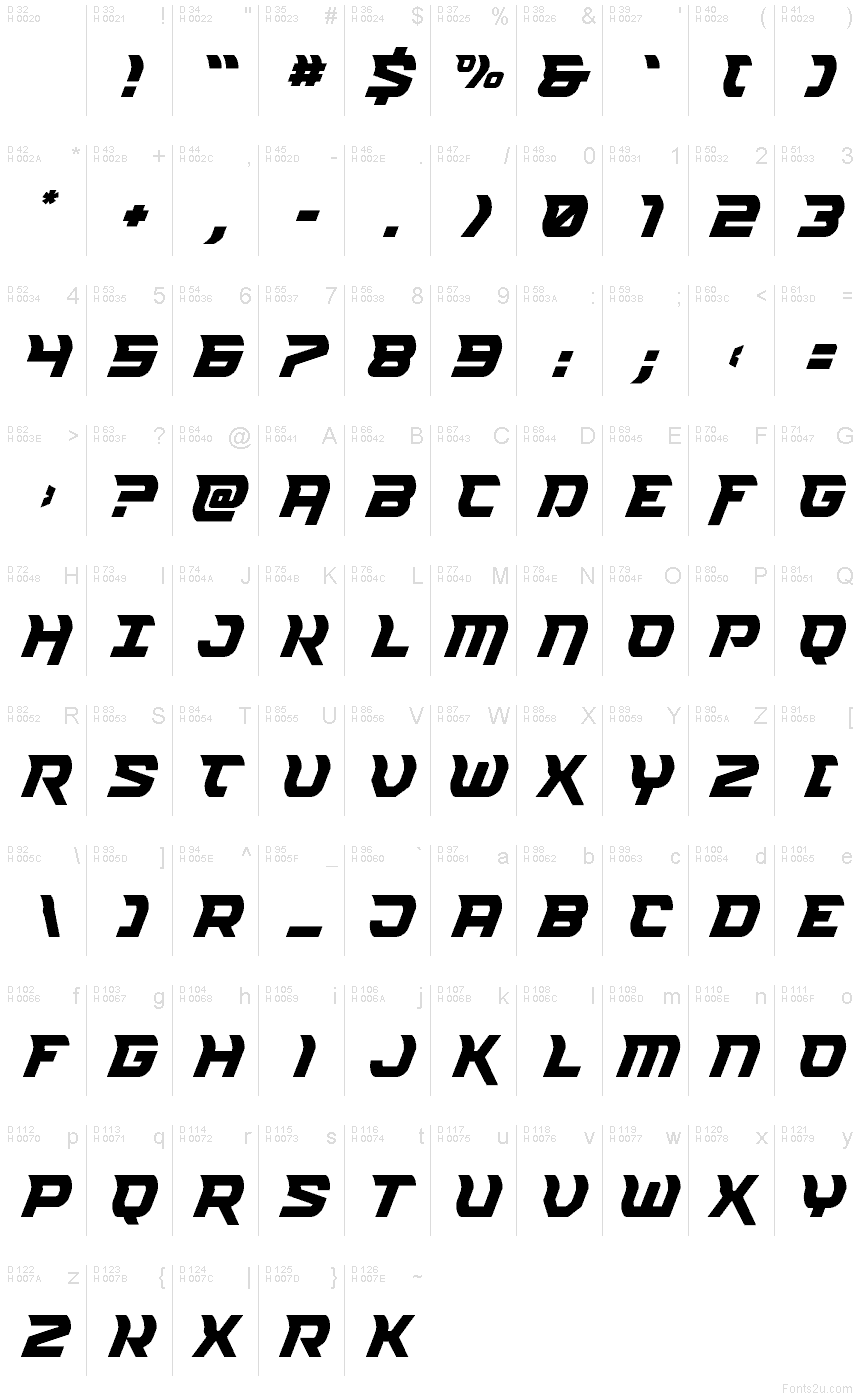
Renegent Title
Renegent Title font by Iconian Fonts is a contemporary display typeface with a futuristic style and a sporty vibe. With its angular shapes, clean lines, and uniform spacing, the font echoes modern aesthetics while giving the entire look new dimensions. Use this free resource from classic print designs to online displays for projects that require futuristic elements.
A futuristic poster needs exciting fonts like this one as much as a business card or greeting card does. Sports or movie logos could carry secret symbols hidden within each letter of this typeface. How about web headers, book titles, advertisements, magazine covers page titles inside newspapers and magazines?